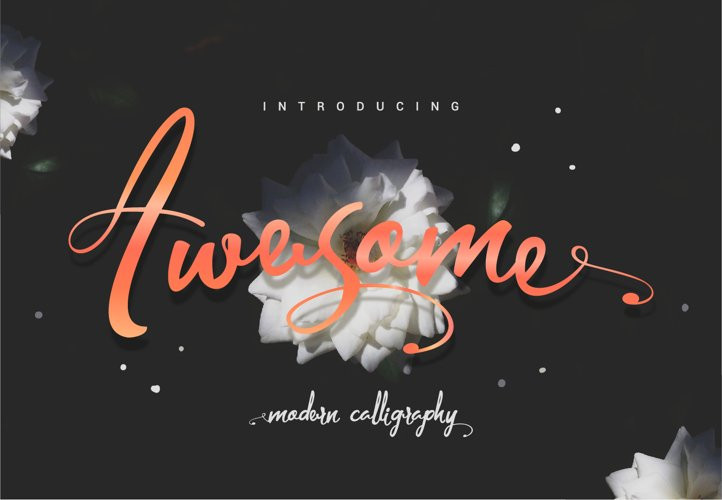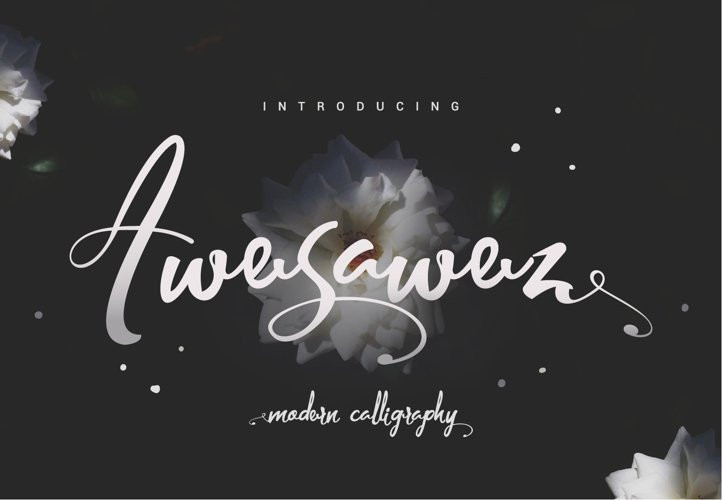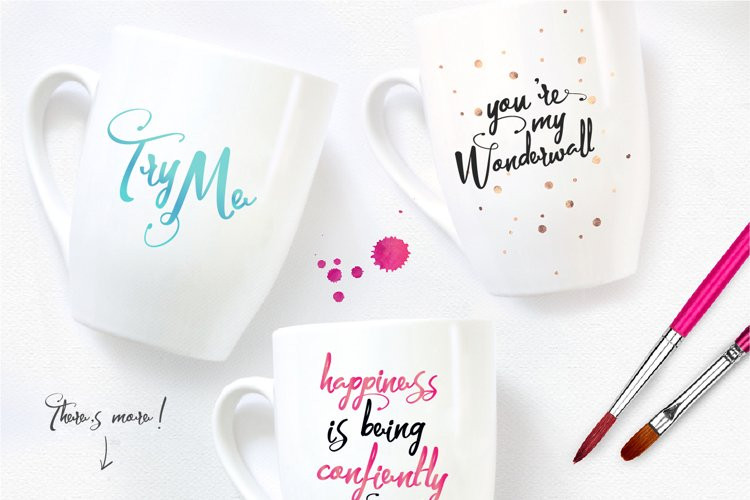
Awesawez Font
Awesawez FontAwesawez is a hand script typeface, with extra bouncy curves & loops, It has a guaranteed to make your text stand out – perfect for logos, printed quotes, invitations, cards, product packaging, headers and whatever your imagination holds.
What’s really Awesawez is that the font comes with a complete set of lowercase alternates, which allows you to create even more authentic custom-feel text. These alternates are accessible by turning on ‘Stylistic Alternates’ in Photoshop, or via any software with a glyphs panel, e.g. Adobe Illustrator, Photoshop CC, Inkscape. Try switching between the regular and alternate characters to get the best layout for your text.